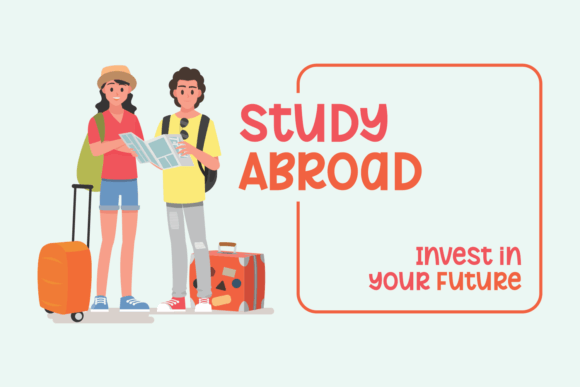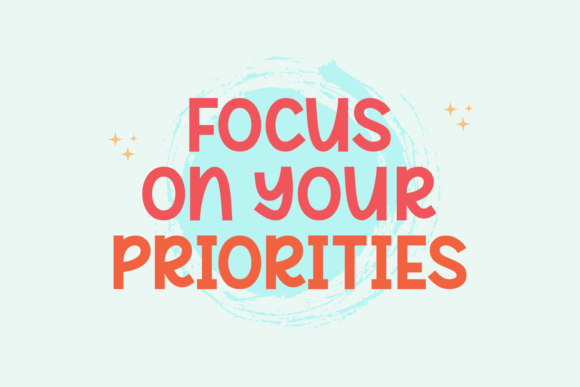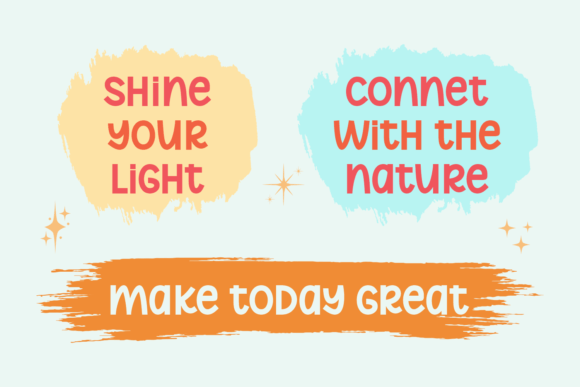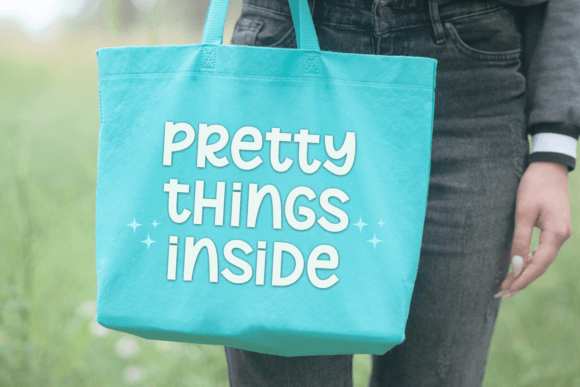
Introduction to Mister Shine Font
As a designer, you’ve probably experienced that magical moment when everything comes together – the perfect combination of colors, typography, and composition. Your creative project suddenly feels alive, and you can’t wait to share it with the world. For many, that moment is made possible by the right font, and today, we’re shining the spotlight on the Mister Shine Font – a friendly and clean handwritten font that’s about to become your new favorite design resource.
With its high-quality aesthetic and transparent background, the Mister Shine Font is the perfect addition to any creative project. Whether you’re working on a tech startup, fashion brand, or design concept, this font exudes a sense of enchantment that’s sure to elevate your creation. And the best part? You can download it for free, making it an invaluable resource for designers of all levels.
Key Features of Mister Shine Font
- High-quality, unique font design perfect for creative projects
- Unique, modern aesthetic, ideal for use in branding, logos, and advertising materials
Honest Review: Mister Shine Font
I recently stumbled upon the Mister Shine Font and was excited to give it a try. As a designer, I’m always on the lookout for high-quality design resources that can elevate my creative projects.
- ✨ The font has a unique and eye-catching design that’s perfect for making a statement in creative projects.
- ✨ The font is highly customizable, making it suitable for a wide range of design styles and applications.
- ⚠️ The font may not be suitable for body text due to its decorative nature.
- ⚠️ The font’s unique design may not be to everyone’s taste, so it’s essential to consider your audience and design goals.
Overall, I’m impressed with the Mister Shine Font. It’s a high-quality design resource that can add a touch of creativity to any project. While it may have some limitations, I think it’s a great addition to any designer’s toolkit.
Mister Shine Font
Mister Shine Font is a high-quality design resource perfect for creative projects that require a unique and eye-catching touch. This versatile font features a transparent background, making it easy to customize and integrate into various designs.
Getting the Most Out of Mister Shine Font
Experiment with different font sizes, colors, and combinations to create unique designs. Use the font in conjunction with other design elements to add depth and visual interest to your projects.
Mister Shine Font is ideal for various design projects, including: